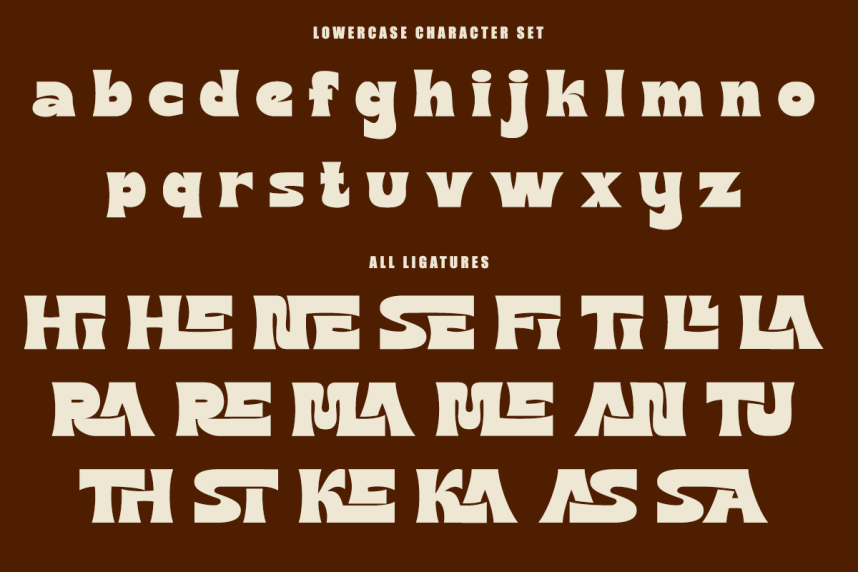
Mashle Font is a display typeface designed by Ghina Luthfiarieska and published through Font Liner in 2025. Its style pulls from retro-futuristic themes, sharp geometry, and modern graphic trends.
It was made available to the public on May 7 that same year. This font offers complete support for uppercase and lowercase letters, numerals, punctuation, multilingual scripts, and OpenType features such as stylistic alternates and ligatures.
Mashle Font